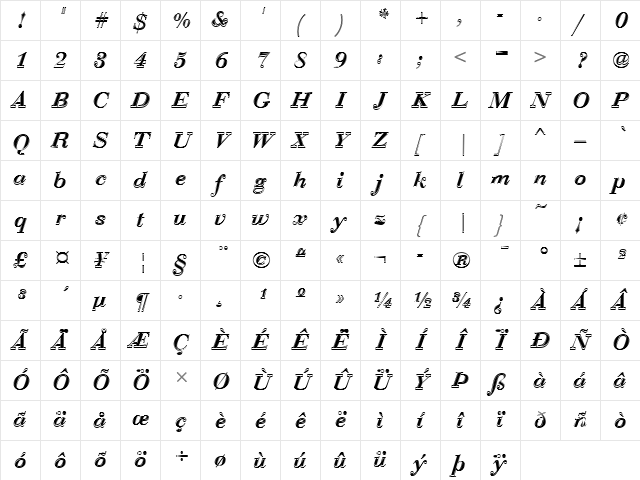
Complete Bauer Bodoni D In1 Demi Bold Italic glyph index. Displaying only characters natively supported by Bauer Bodoni D In1 Demi Bold Italic font.
Bauer Bodoni D In1 is a composed and adaptable typeface that performs quietly and consistently across a wide range of design contexts. The slanted form adds forward momentum and visual energy. Its bold stroke weight gives it real presence on the page.
Pro Tip: Use Bauer Bodoni D In1 for emphasis, pull quotes, and subheadings where its slanted energy can add rhythm to the layout.